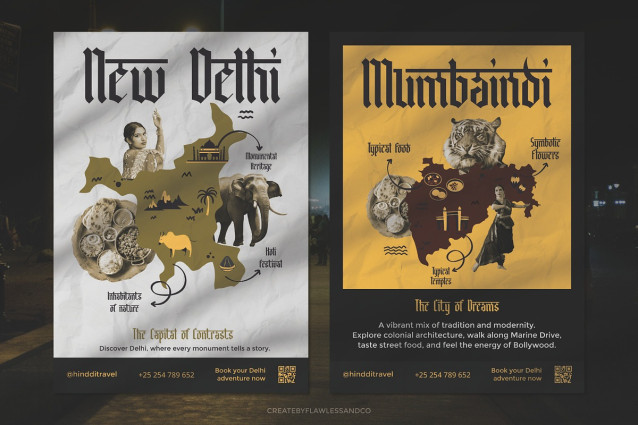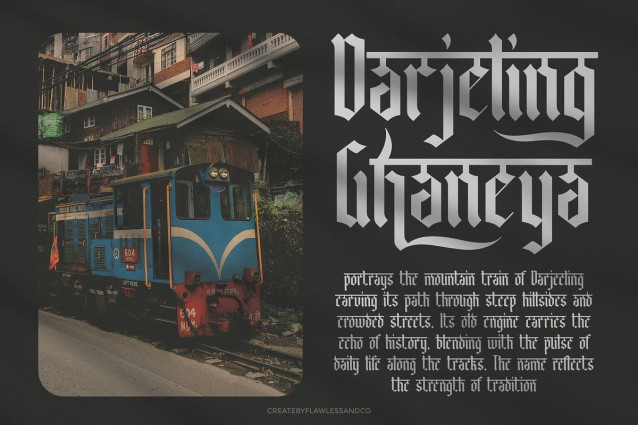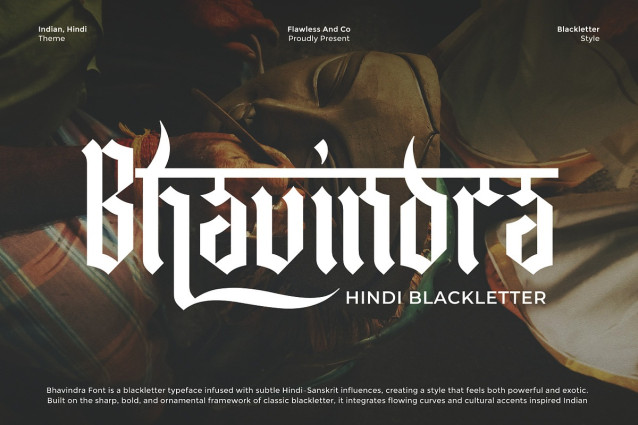
Bhavindra Blackletter Font is a Hindi-inspired blackletter font that merges the bold, ornamental framework of traditional blackletter with the cultural richness of Indian aesthetics. Infused with subtle Hindi–Sanskrit influences, it creates a style that is both powerful and exotic—perfect for projects that demand authority, mystique, and cultural depth. With its sharp edges, flowing curves, and distinctive accents, Bhavindra balances strength and elegance while maintaining high readability. This makes it an excellent choice for impactful branding, editorial headlines, poster designs, and cultural-themed projects that need a unique typographic voice.